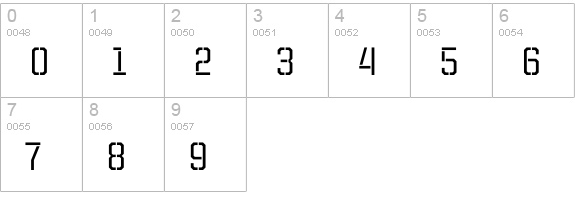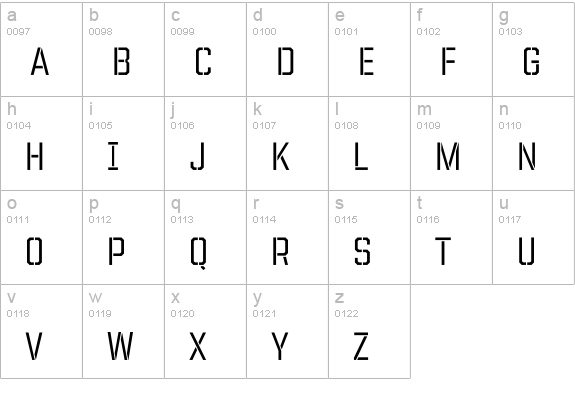
HouseSampler-UnitedStencil Font Details
Introducing HouseSampler-UnitedStencil font, a versatile and stylish typeface that exudes a unique blend of modernity and elegance. This font features clean lines and a stencil design that make it perfect for a wide range of creative projects. Whether you're designing a poster, branding materials, or website content, HouseSampler-UnitedStencil font will add a touch of sophistication to your work. The best part? HouseSampler-UnitedStencil font is available for free download at FontsMarket.com. This means you can easily access this high-quality font without breaking the bank. Enhance your projects with the eye-catching appeal of HouseSampler-UnitedStencil font and make a lasting impression on your audience. Don't miss out on the opportunity to elevate your designs with this stunning font. Download HouseSampler-UnitedStencil today and let your creativity shine!